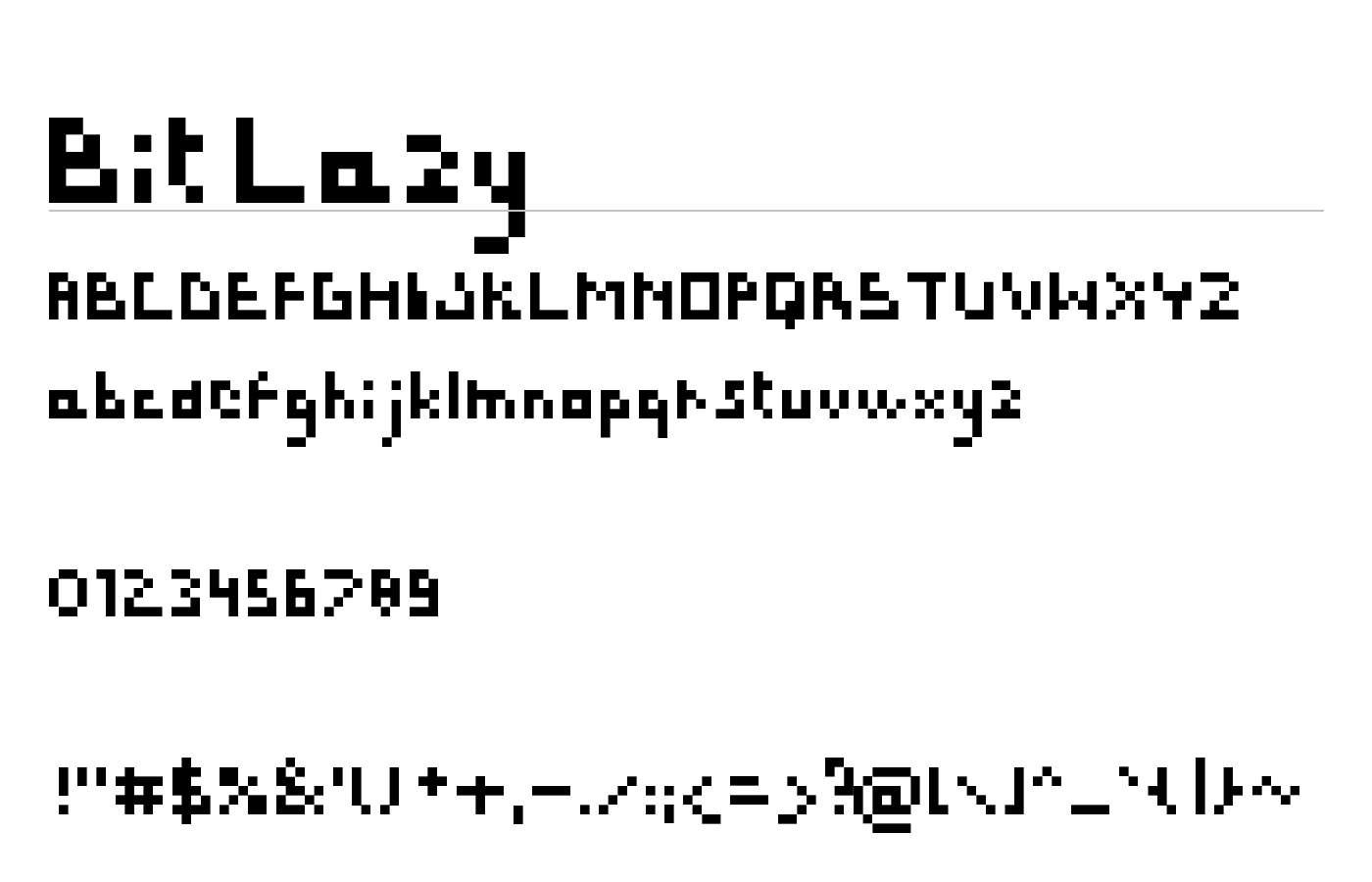
Bit Lazy is a pixelated, monospace-style font that showcases a blocky, retro digital aesthetic reminiscent of early computer and video game typography. Its uniform weight and geometric shapes lend a playful yet structured feel, making it ideal for nostalgic designs, tech-themed projects, and creative digital displays where a vintage 8-bit vibe is desired.
Bit Lazy Font
About Bit Lazy Font